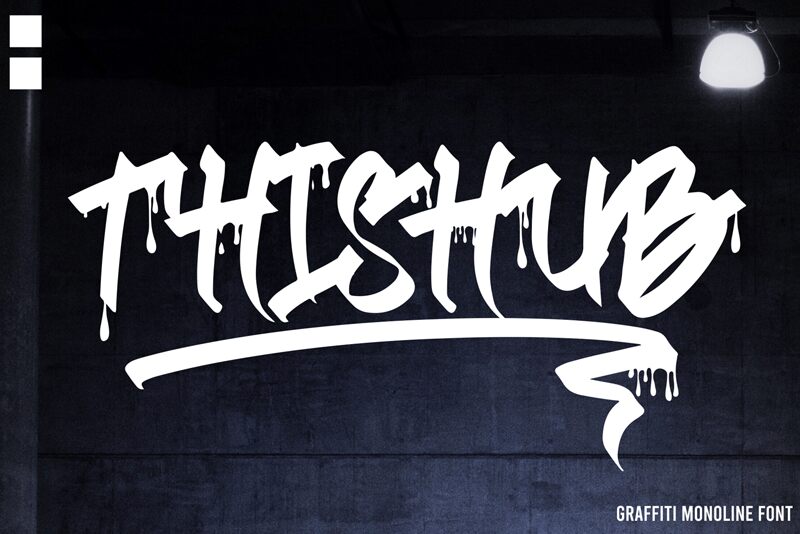
Thishub Graffiti
Thishub Graffiti is a game-changing font designed by Si Panji that packs a punch. With its graffiti monoline style, Thishub Graffiti adds a touch of urban edge to your projects. The semi-light weight of the font allows for easy readability while still maintaining its rebellious aesthetic. This font is perfect for any project that needs an edgy and bold look, such as streetwear designs, music posters, or even event invitations. Let Thishub Graffiti be the voice of your creative expression.